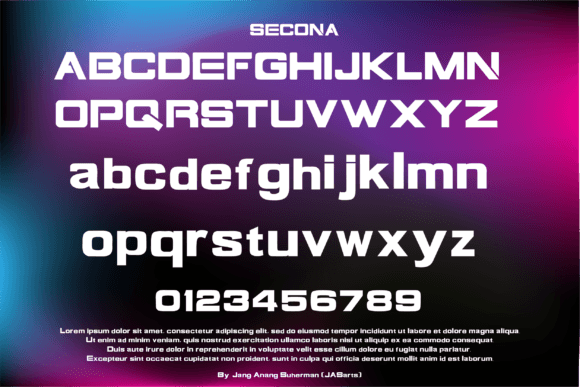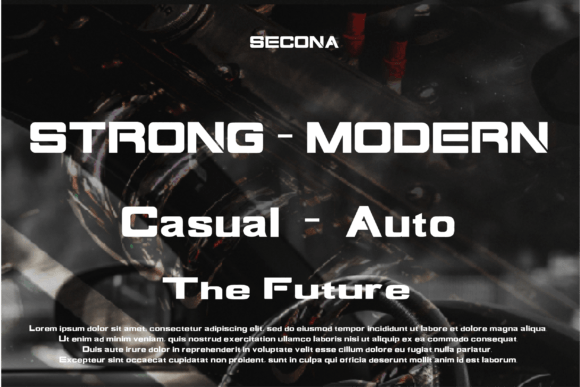
Introduction to Secona Font
Secona is an electro and futuristic display font that is a perfect choice for projects that require a high-tech and cutting-edge aesthetic.
Its sleek and edgy design features sharp angles and bold lines, creating a sense of motion and energy .
Key Features of Secona Font
Why Choose Secona Font?